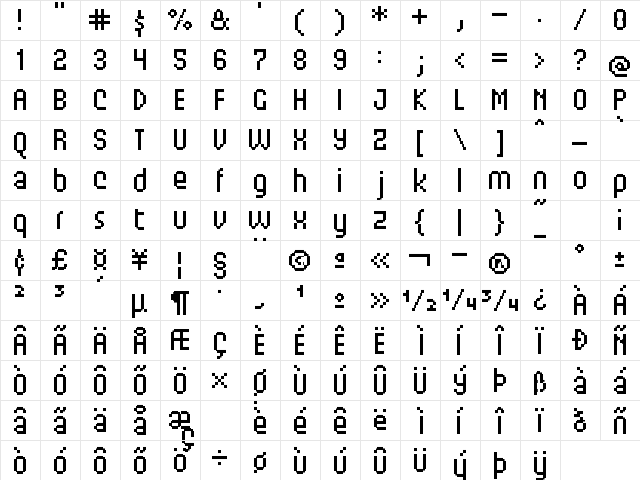
UF California Regular Regular
| Foundry | Ultrafonts |
| Designer | Miguel Hernதez |
Design Context for UF California Regular Typeface
UF California Regular offers clean, dependable letterforms without strong stylistic allegiance, making it a practical choice for designers who need flexibility.